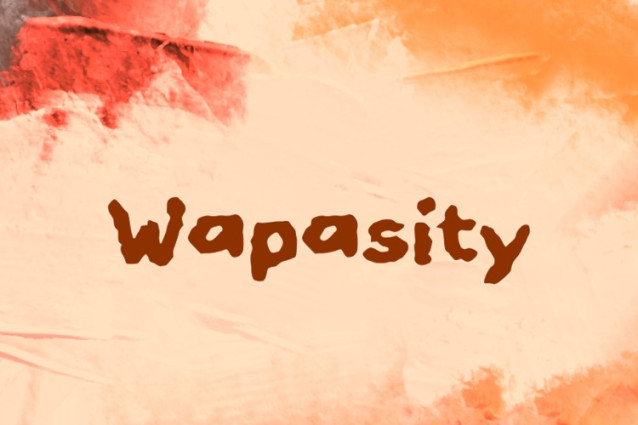
Wapasity Font
Wapasity Font, perfectly fit for branding, logo, wedding things, greeting cards, fashion, lookbook, marketing promotion, anytime you want to look fancy elegant but still casual.